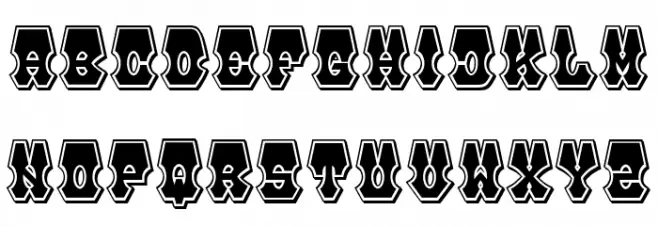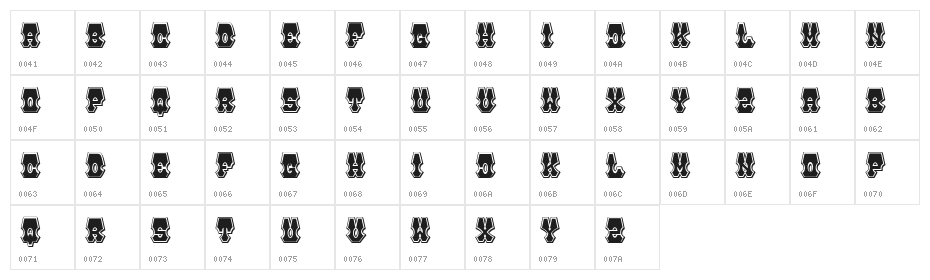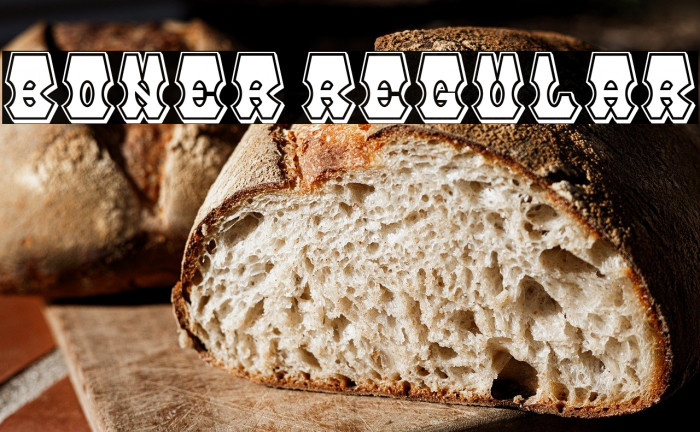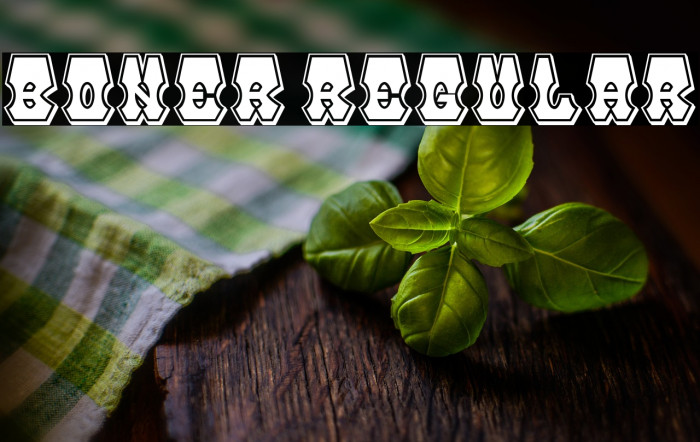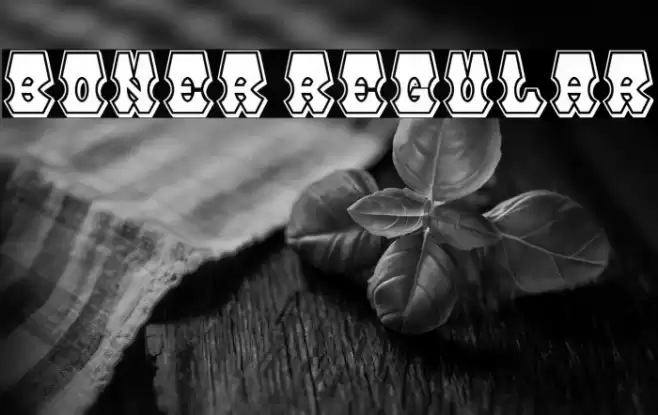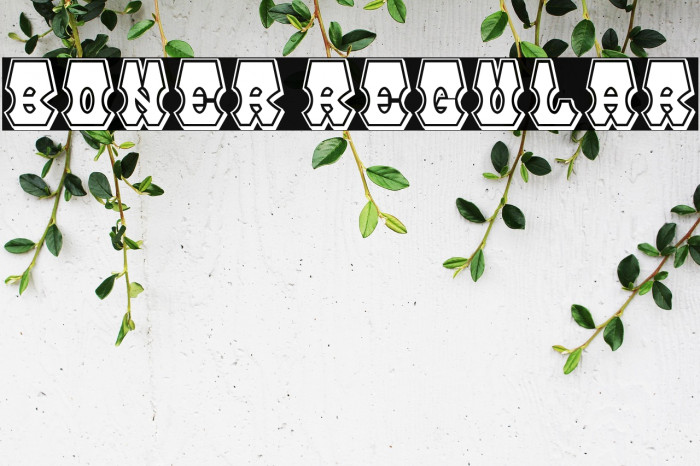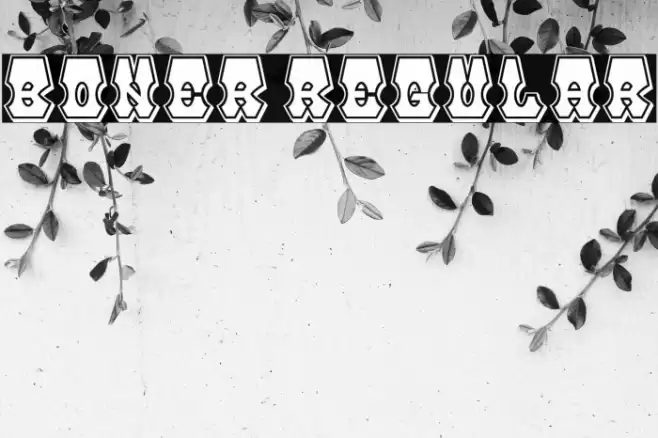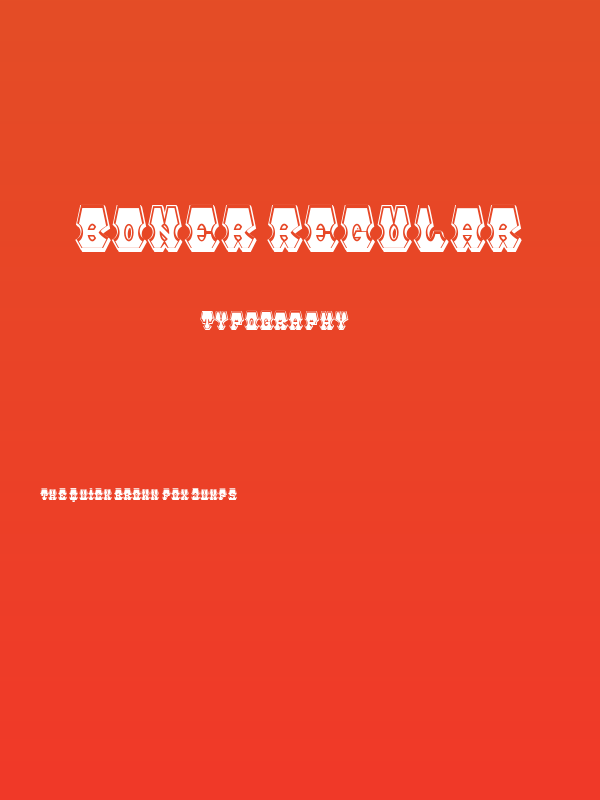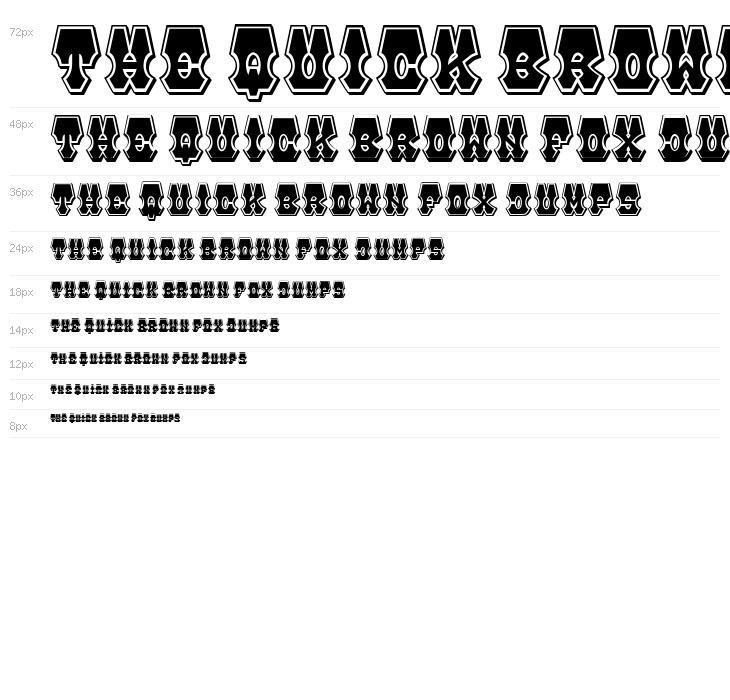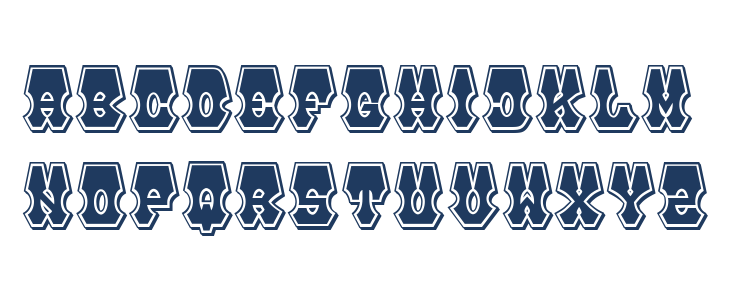
Boner Regular Font
Boner Regular Description
This font showcases a bold and striking design with a unique skeletal motif. Each character is outlined with a thick black border, giving it a three-dimensional appearance. The interior of the letters features a white space that accentuates the boldness of the outline. The font's design is highly decorative, with each letter incorporating bone-like structures that create a playful yet edgy aesthetic. This makes it particularly suitable for themes related to Halloween, horror, or any project requiring a dramatic and eye-catching typeface. The font maintains a consistent style across uppercase, lowercase, and numerical characters, ensuring uniformity in design.
| Proposed Projects | Ideal for Halloween-themed designs, horror movie posters, edgy branding, or any project needing a striking and unique typeface. |